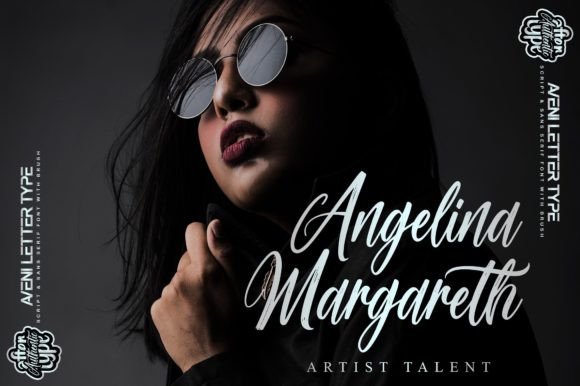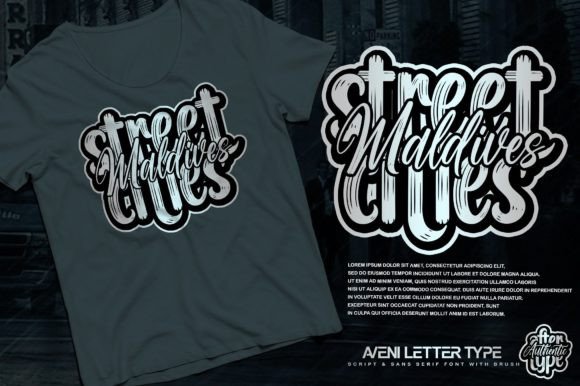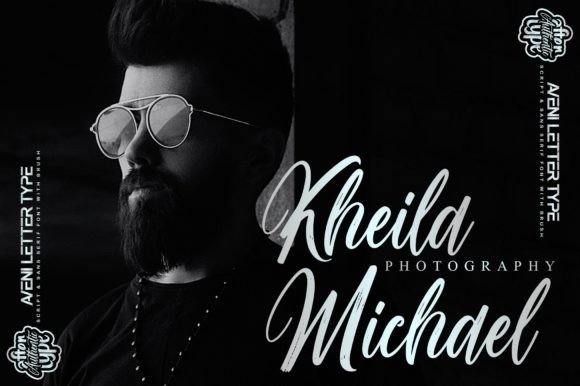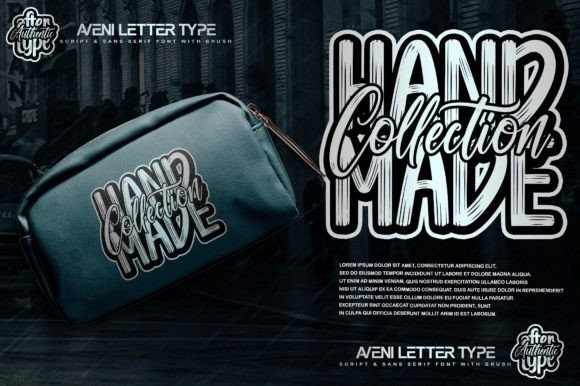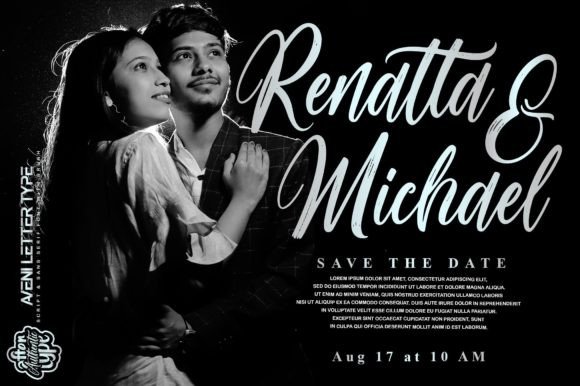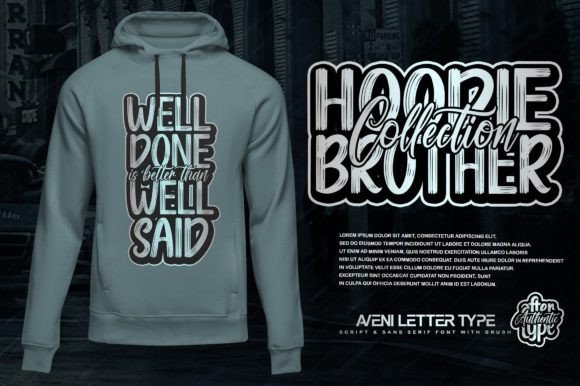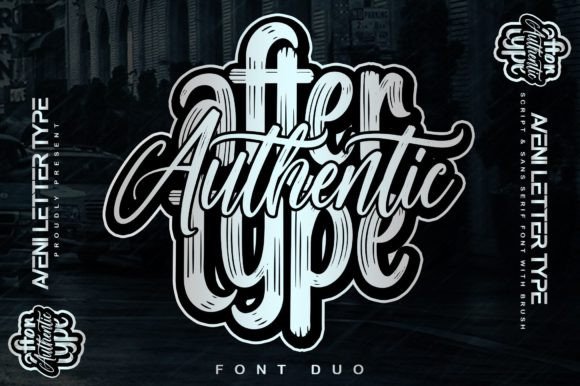
Introducing Authentic After Type Font: Elevate Your Designs with Style and Precision
In the world of design, fonts play a pivotal role in conveying messages, evoking emotions, and creating lasting impressions. For designers and crafters seeking a blend of style, versatility, and precision, the Authentic After Type Font is an exceptional choice. This font duo, consisting of a script and a sans serif, is meticulously crafted to enhance your creations with a neat kerning and stylish appeal. Whether you’re working on apparel branding, daily quotes, product packaging, or greeting cards, Authentic After Type is poised to become your go-to font for delivering visually stunning results.
Key Features of Authentic After Type Font
• Font Duo: Authentic After Type offers a versatile pair of fonts – a beautiful script and a clean sans serif. This duo caters to a wide range of design needs, from elegant and sophisticated to modern and straightforward.
• Stylish and Neat Kerning: The font boasts a stylish appearance coupled with expert kerning. This ensures that your text is not only aesthetically pleasing but also highly legible, making it perfect for both headings and body text.
• Versatility: One of the standout features of Authentic After Type is its incredible versatility. It can be seamlessly integrated into various design projects, including but not limited to apparel branding, tote bag or handbag branding, product packaging, headers, posters, merchandise, wedding invitations, social media graphics, and greeting cards.
Applications of Authentic After Type Font
The adaptability of Authentic After Type makes it an invaluable asset for designers and crafters across multiple platforms and projects. Here are some of the many ways you can utilize this font duo:
• Apparel Branding: Create compelling and stylish logos, slogans, and taglines for clothing lines, accessories, and personal fashion brands.
• Daily Quotes and Social Media Graphics: Elevate inspirational and thought-provoking quotes into visually appealing graphics that engage and resonate with your audience.
• Tote Bag and Handbag Branding: Add a touch of elegance and sophistication to your tote bags and handbags with custom fonts that reflect your brand’s identity.
• Product Packaging: Stand out in the market with beautifully designed packaging that incorporates Authentic After Type for a professional and stylish look.
• Wedding Invitations and Stationery: Add a personal and elegant touch to wedding invitations, greeting cards, and other stationery with the script font for a more formal and heartfelt feel.
Why Choose Authentic After Type Font?
In a sea of fonts, Authentic After Type stands out for several reasons:
• Expertly Designed: Crafted with attention to detail, this font duo is designed to make your creations look amazing, ensuring your designs are both visually appealing and effective.
• Time-Saving: With its versatility and stylish appearance, Authentic After Type saves you time in searching for different fonts for various projects, streamlining your design process.
• Enhanced Creativity: The unique yet legible design of this font duo encourages creativity and experimentation, allowing you to push the boundaries of your designs.
Font Name Authentic After Type Font
Author Aveni Letter Type
Authentic After Type Font is more than just a font duo; it’s a design solution that caters to the diverse needs of designers and crafters. Its stylish appearance, neat kerning, and versatility make it an indispensable tool in your design arsenal. Whether you’re a professional designer looking to elevate your branding projects or a crafter aiming to add a personal touch to your merchandise, Authentic After Type is your key to unlocking stunning and impactful designs. Embrace the power of typography with Authentic After Type and transform your creations into memorable experiences.